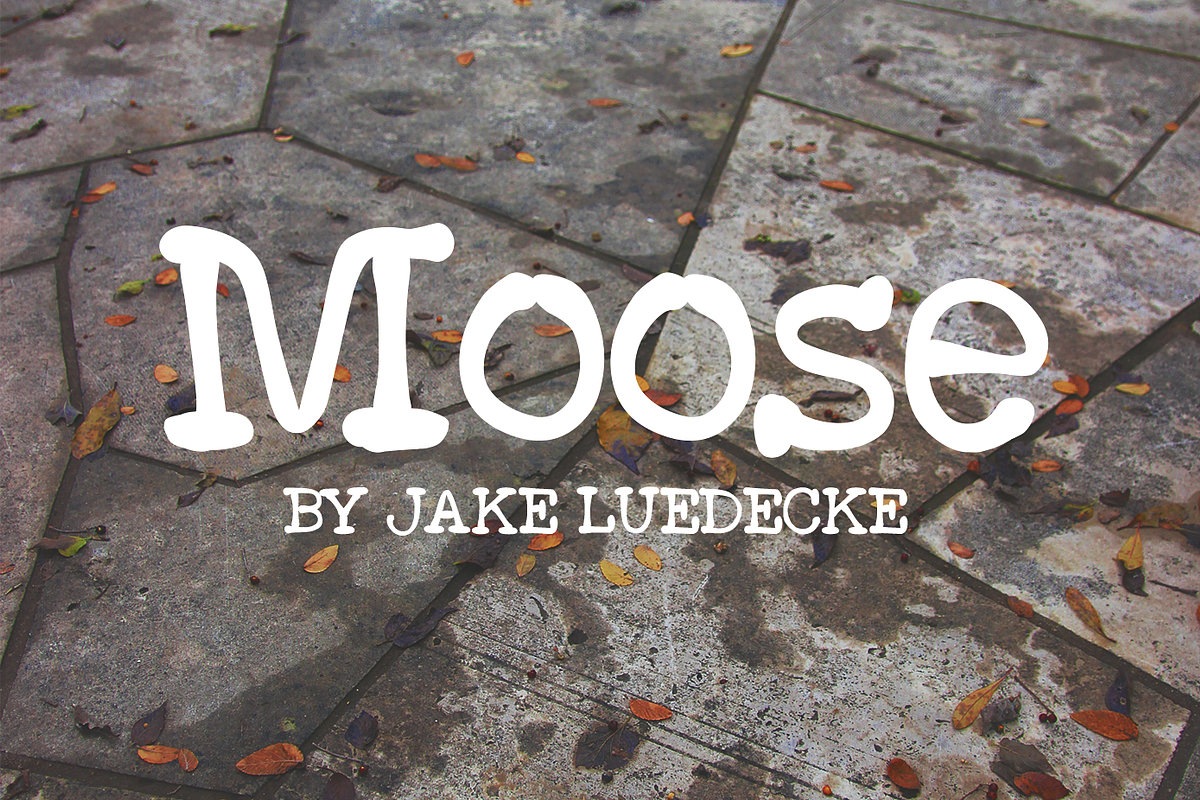
Moose Font Free Download is a bold and quirky typeface that brings personality and punch to your creative projects. With its chunky letterforms and retro-inspired style, Moose is perfect for eye-catching headlines, vintage posters, product packaging, branding, and playful social media graphics.
Designed to stand out, Moose adds a fun and nostalgic vibe to any layout while maintaining excellent readability. Its strong presence makes it especially effective for designs that need to grab attention and convey energy, whether you’re working on a bold logo or a funky event flyer.